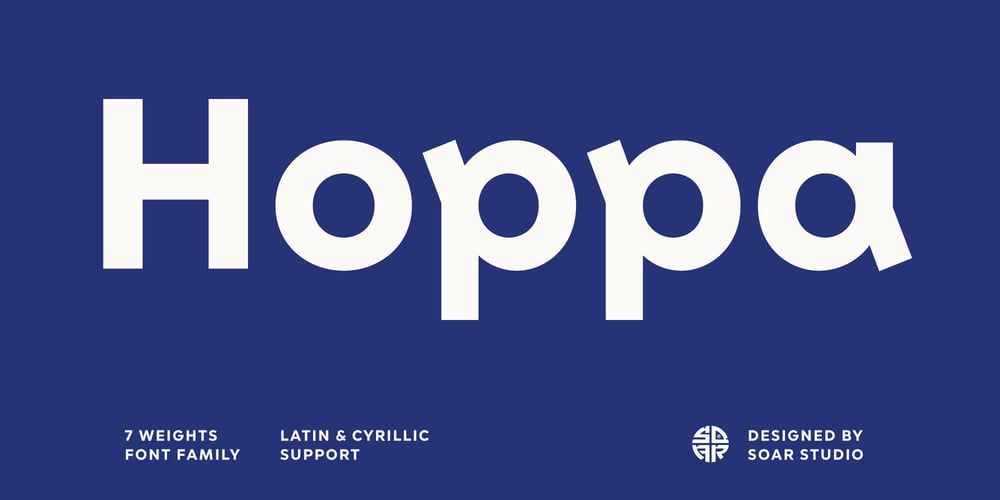
Hoppa Font Family was designed by Piotr Ciesielski and published by Soar Studio. Hoppa contains 7 styles and family package options. Hoppa is a clean geometric typeface with a fun twist. It was carefully designed to the modern standards like big x-height and short descenders. With its smooth curves and loop-alike shapes, Hoppa will add a fresh and lively feel to your designs. Although it has been created to be used as a display face, it performs well in longer texts. Thanks to alternate glyphs, font gets more legible, neutral look.Hoppa supports most of Latin and Cyrillic languages and includes range of OT features.